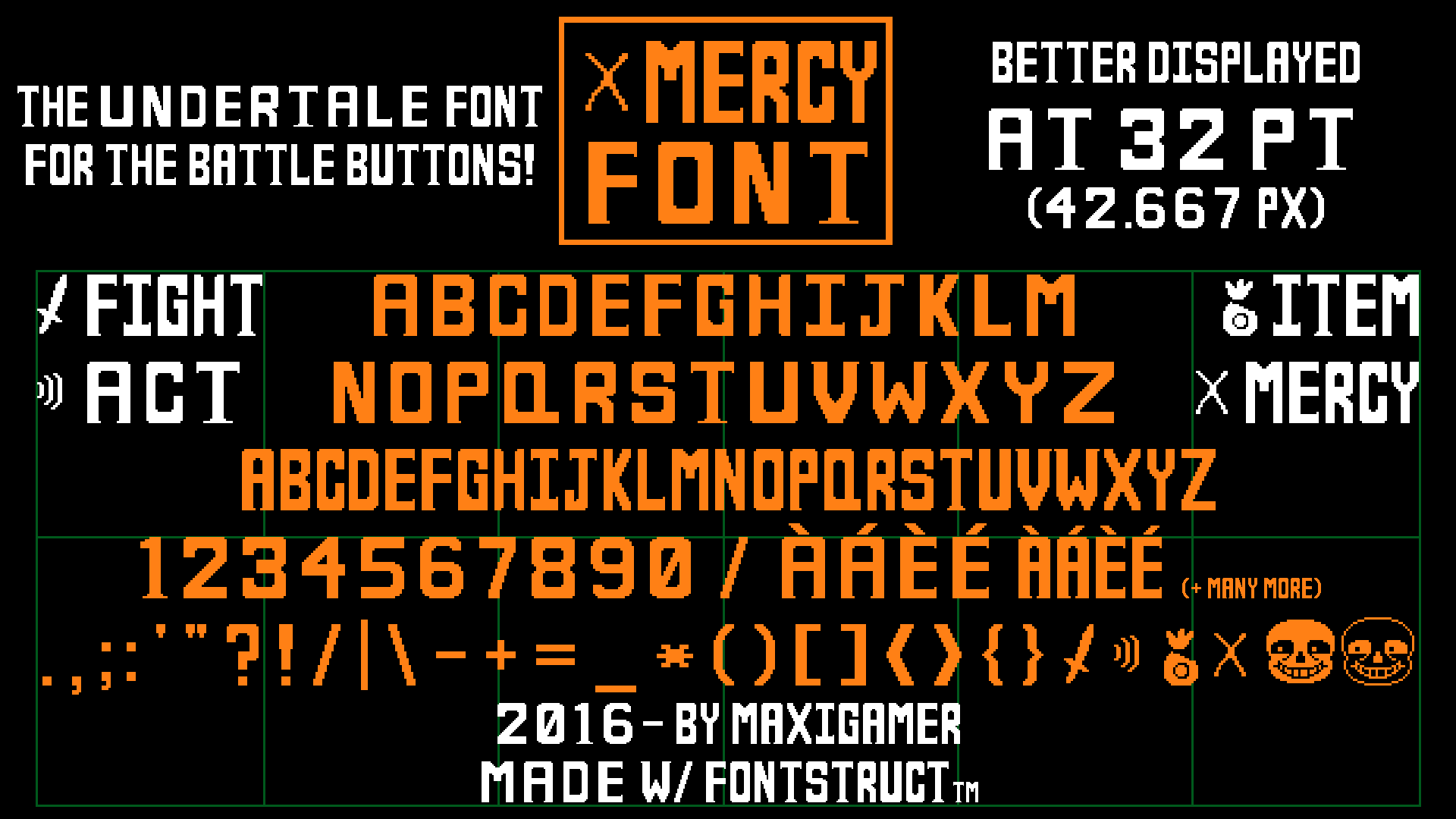
AAAAND I'm back with my I-dunno-how-many-th font! And it's a font from UNDERTALE, the now very popular RPG game by tobyfox. It is the most complete of all my fonts, containing about a 150 glyphs. ohemgee das a lot!!!1!one! (sorry)This font (made in FontStruct) replicates the font used for the battle buttons (Fight/Act/Item/Mercy) at the bottom of UNDERTALE's battle screen. Since it didn't exist anywhere (until now) and appears to be totally custom, I decided to make a full font out of it (pretty much like what I did with all of my other fonts)!
It is better displayed at 32 pt (42.667 px).
@ = Double Sans
& = Mercy Icon
# = Fight Icon
$ = Act Icon
% = Item Icon